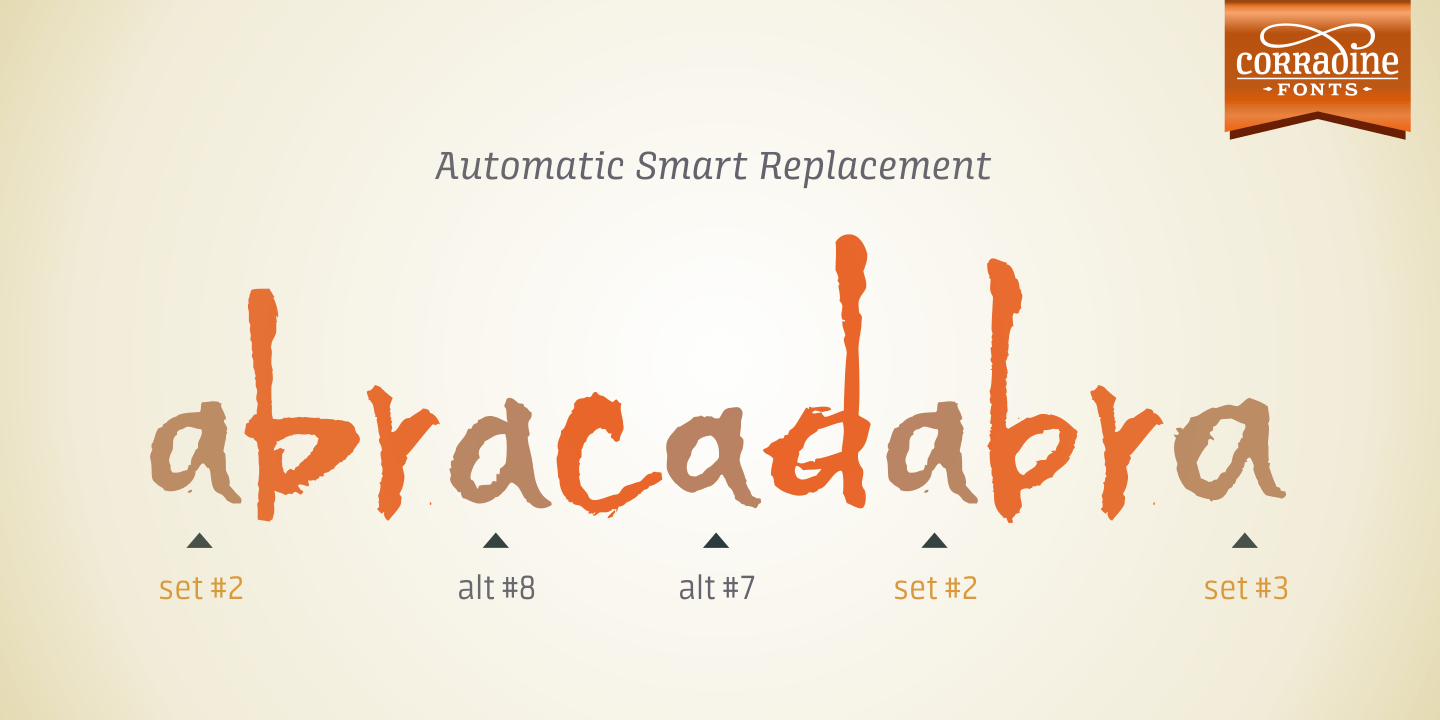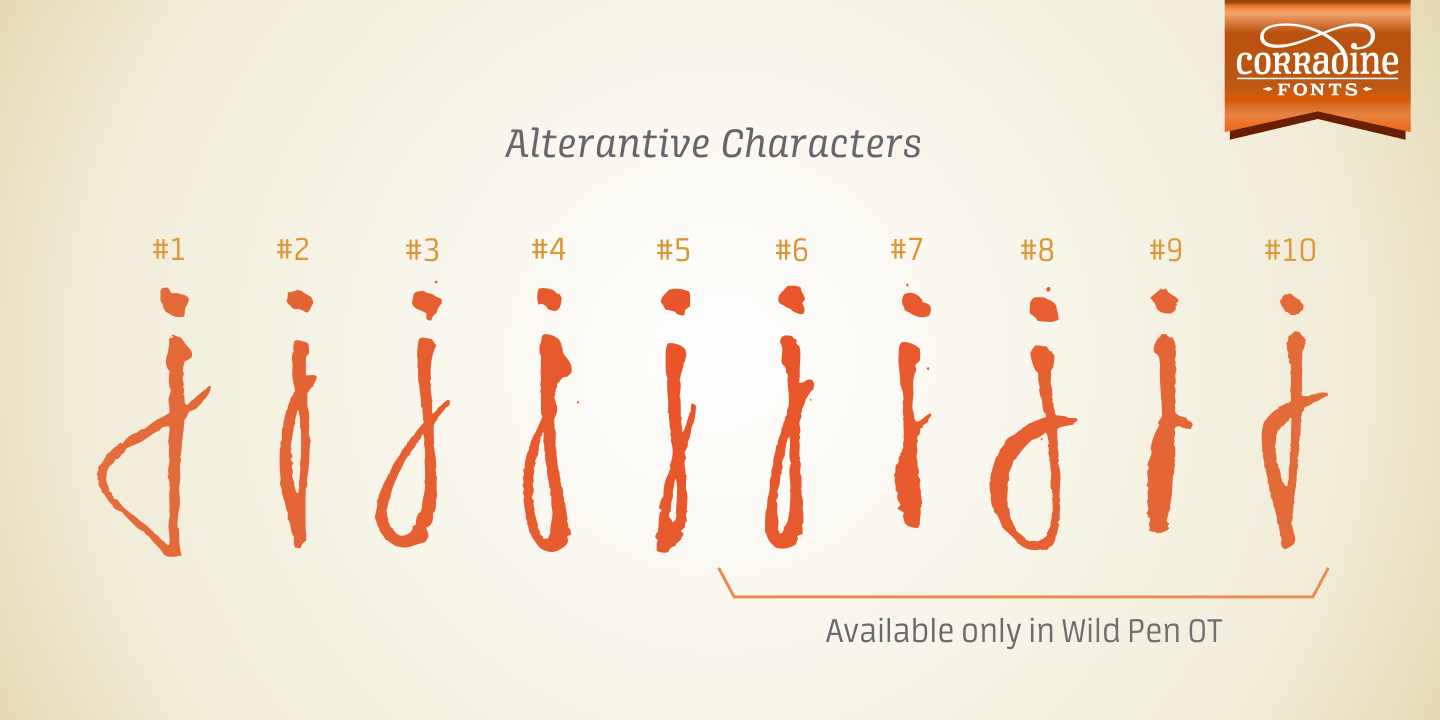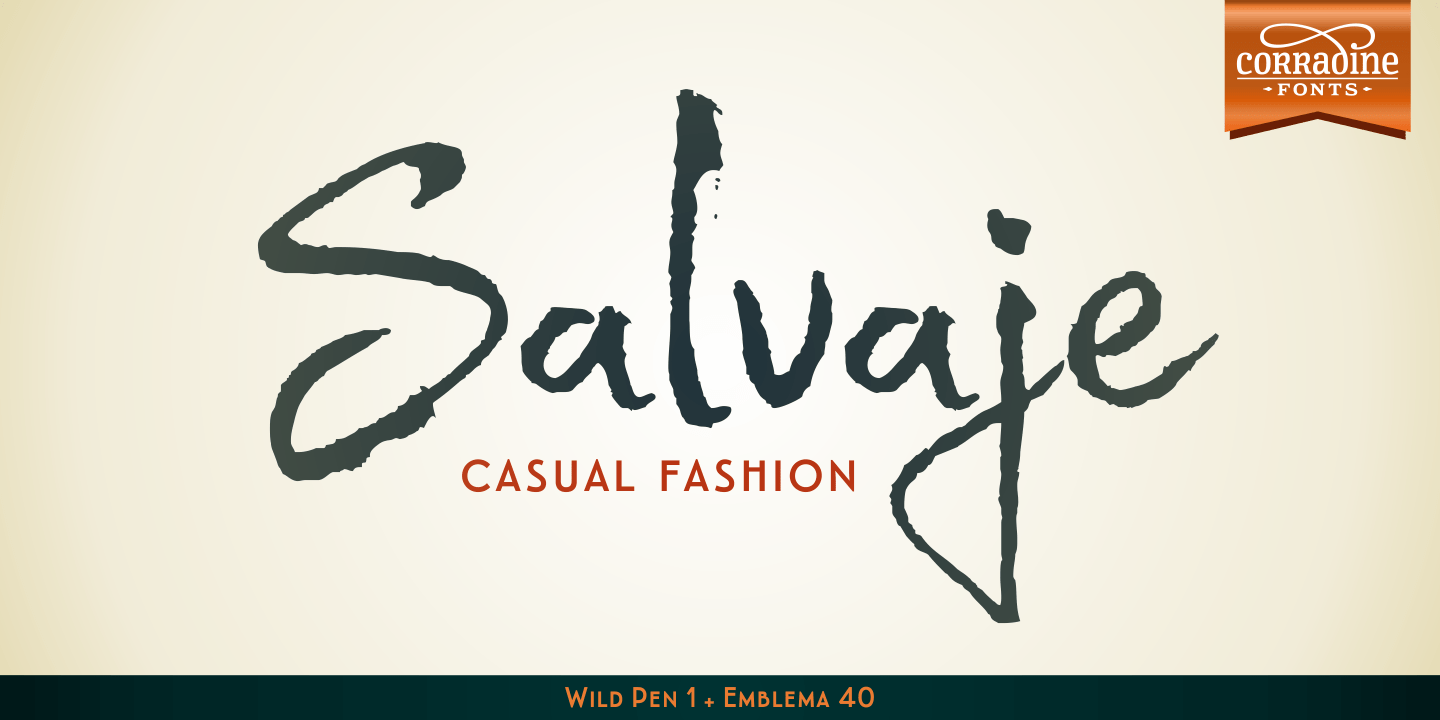
About Wild Pen
Wild Pen is a handwritten typeface created through an experimental pen that\’s made from recycled plastic bottle. Its spontaneous strokes are very free and allow presence of drops and blots of ink. The complete family consists of five different fonts,…